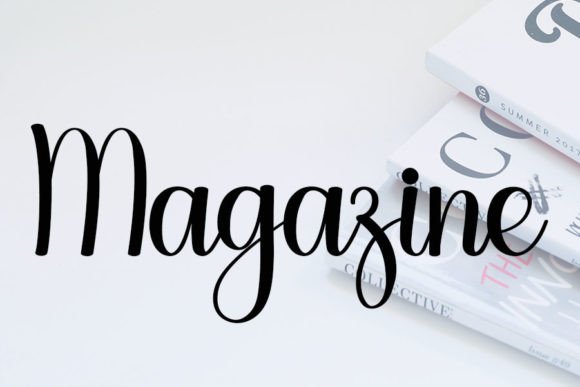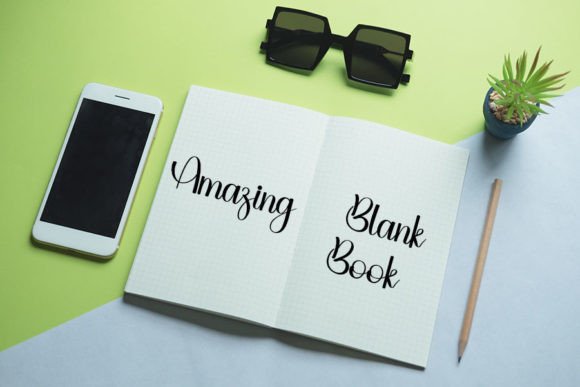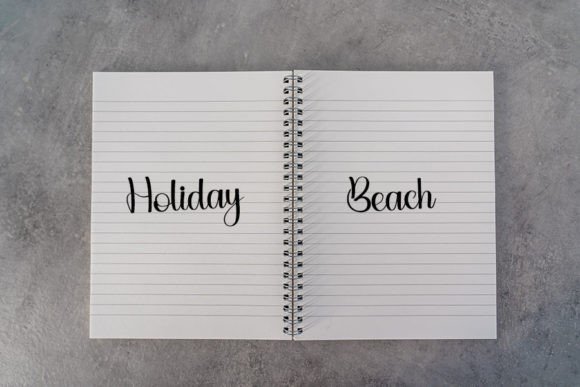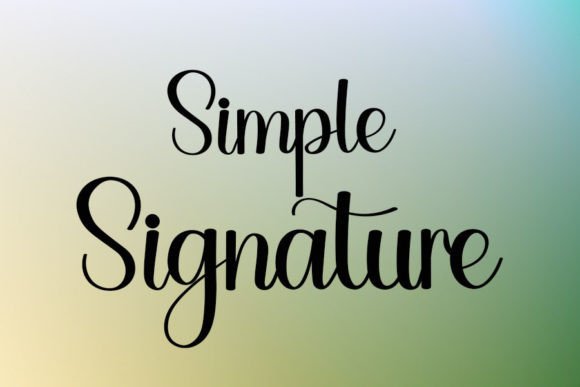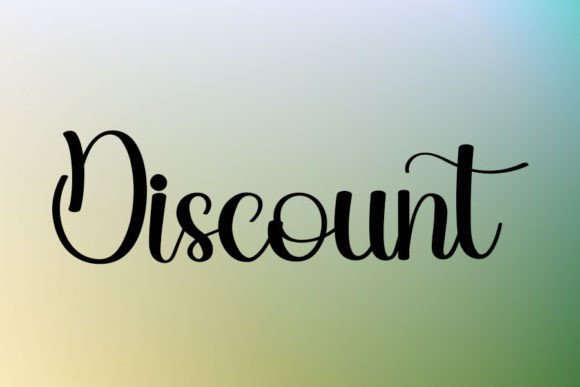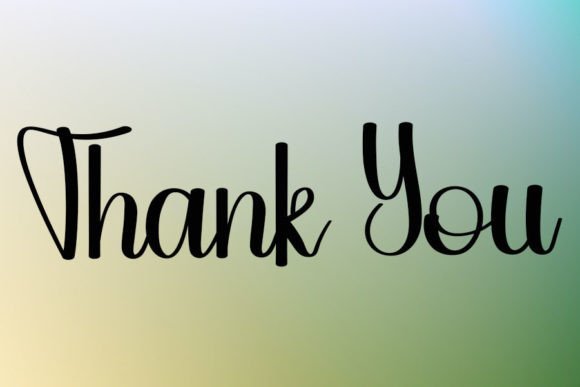
Unleash Your Creativity with the Timeless Book Signature Font
Do you ever find yourself scribbling down ideas in a journal or sketchbook, only to be drawn back to a particular phrase or sentence because of its unique handwriting? For many of us, there’s something special about the imperfections and elegance of handwritten text that can evoke a sense of warmth and personality.
That’s exactly what the Book Signature Font is designed to capture – a beautiful, handwritten font that adds an elegant touch to your favorite projects. Perfect for designers, artists, and anyone looking to add a personal touch to their work, this font is a valuable addition to any creative toolbox. With its distinct and timeless style, the Book Signature Font is sure to leave a lasting impression on your audience.
- Font Family: Book Signature Font is a unique, handwritten font family designed to resemble handwritten signatures.
- Unique Characteristics: The font features a range of dynamic, handwritten strokes and subtle imperfections, giving it a natural, authentic feel.
Book Signature Font Review
Overall, I was pretty impressed with the Book Signature Font. ✨ It has a classic, elegant feel that’s perfect for book covers, magazine titles, or any other project that needs a sophisticated touch. The font is highly legible and easy to read, even at smaller sizes.
Some of the things that really stood out to me about this font include: ✨
- A wide range of weights and styles to choose from, including italic and bold options
- High-quality kerning and spacing for a professional look
- Good support for both Latin and Cyrillic character sets
However, there are a few limitations to be aware of: ⚠️
- The font may not be suitable for display at very large sizes, as it can start to look a bit chunky
- Some of the more exotic languages may not be fully supported
Overall, I think the Book Signature Font is a solid choice for anyone looking for a high-quality, elegant font. With a little careful selection and use, it’s sure to add a touch of sophistication to any project.
Use the Book Signature Font to add a touch of elegance and sophistication to your designs. Experiment with different font sizes, colors, and effects to achieve the desired look. This font is particularly well-suited for book covers, author signatures, and other literary-themed designs.
The Book Signature Font is commonly used in book covers, author signatures, and other